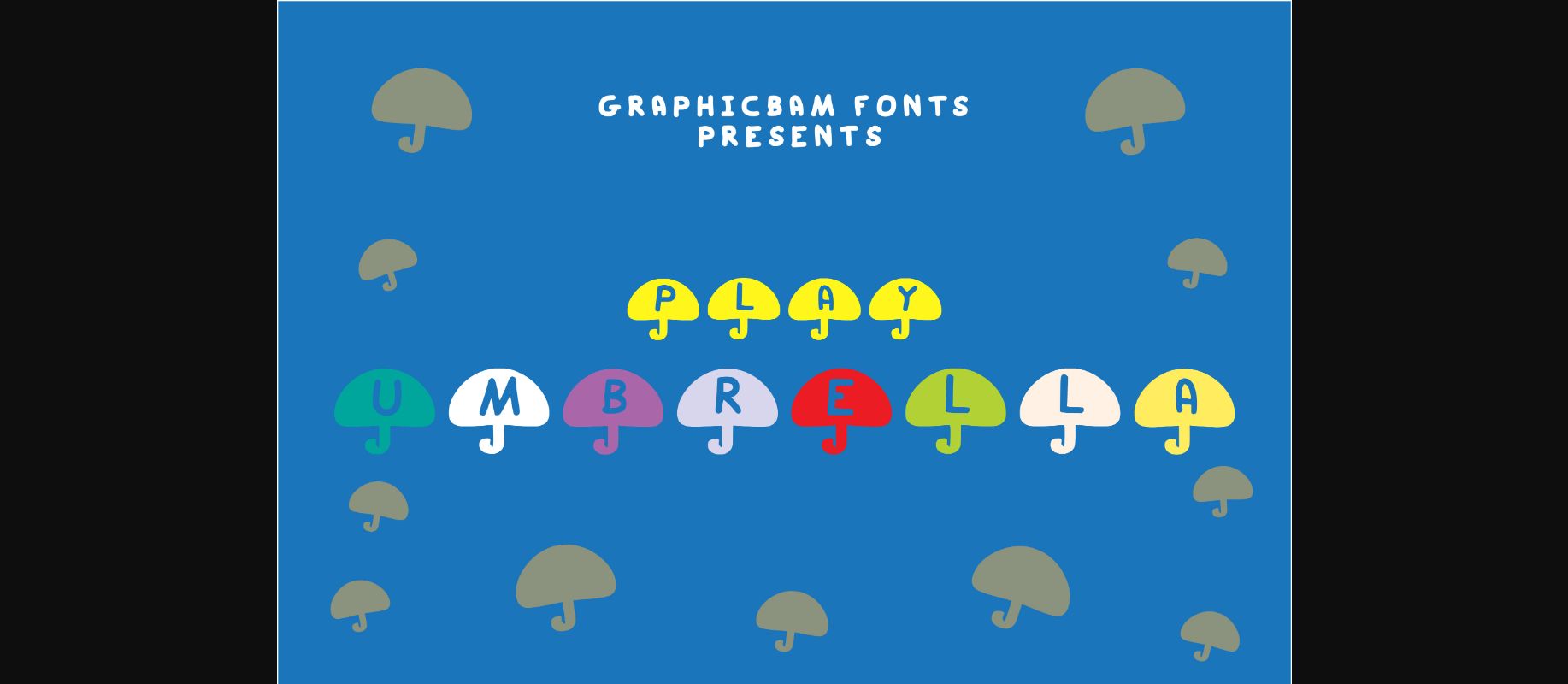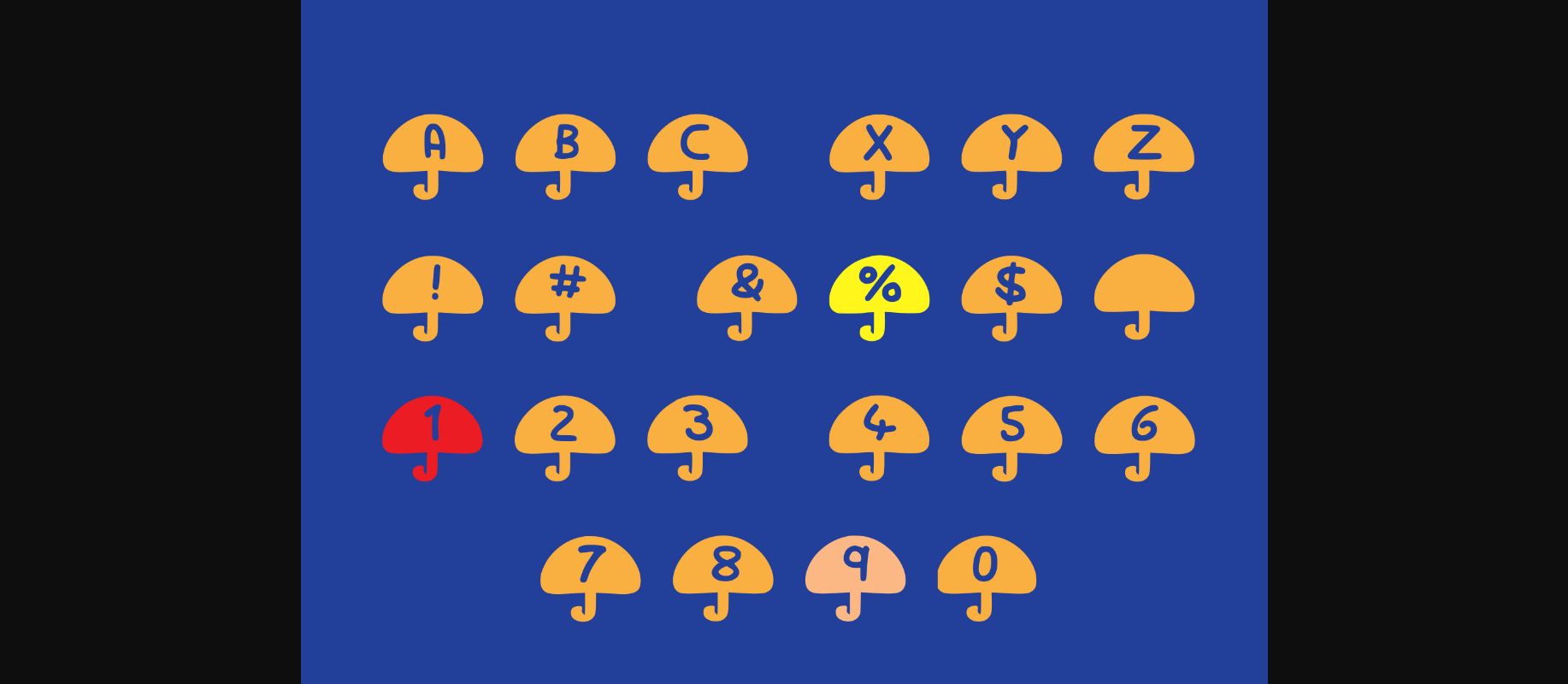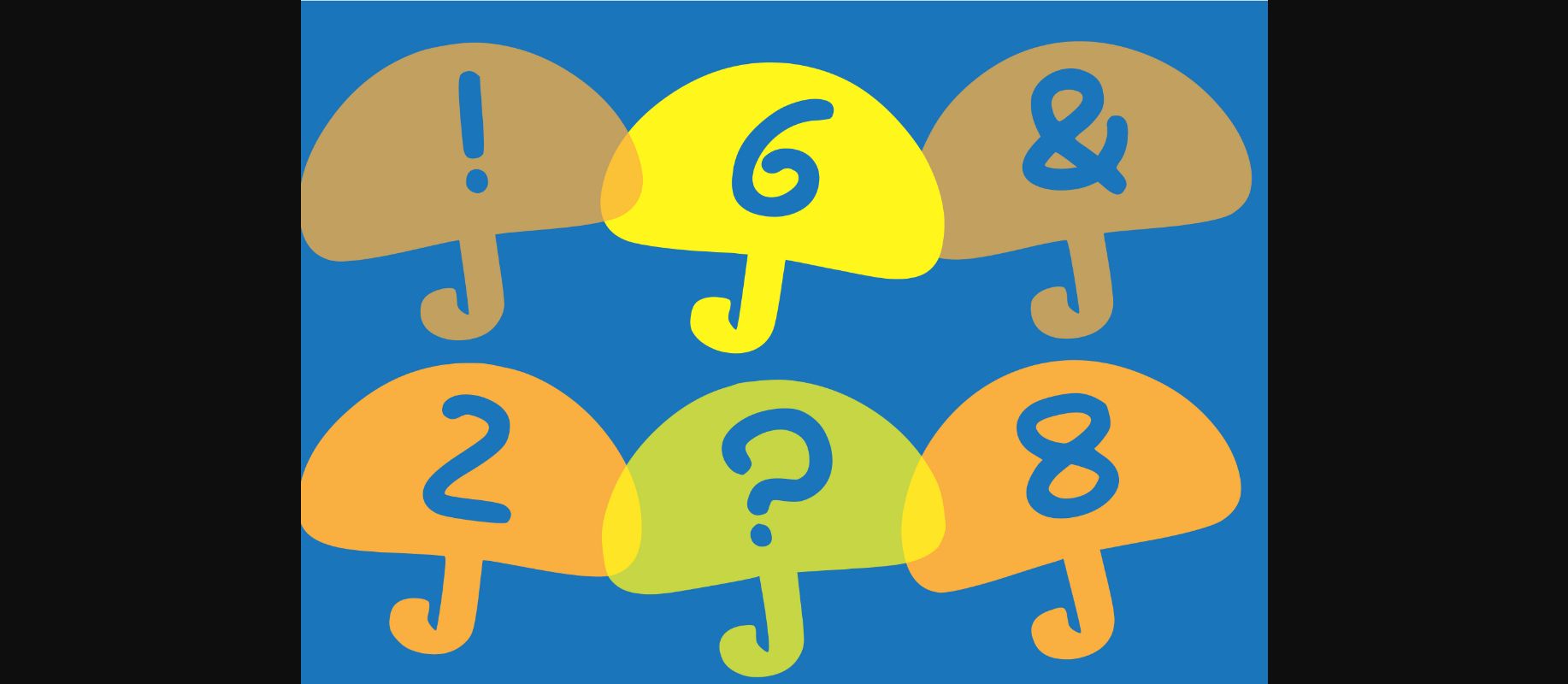
About Play Umbrella Font
This fun decorative font has got you covered on rainy days! Play Umbrella can elevate the appearance and entertainment level of any creative project you have coming up!